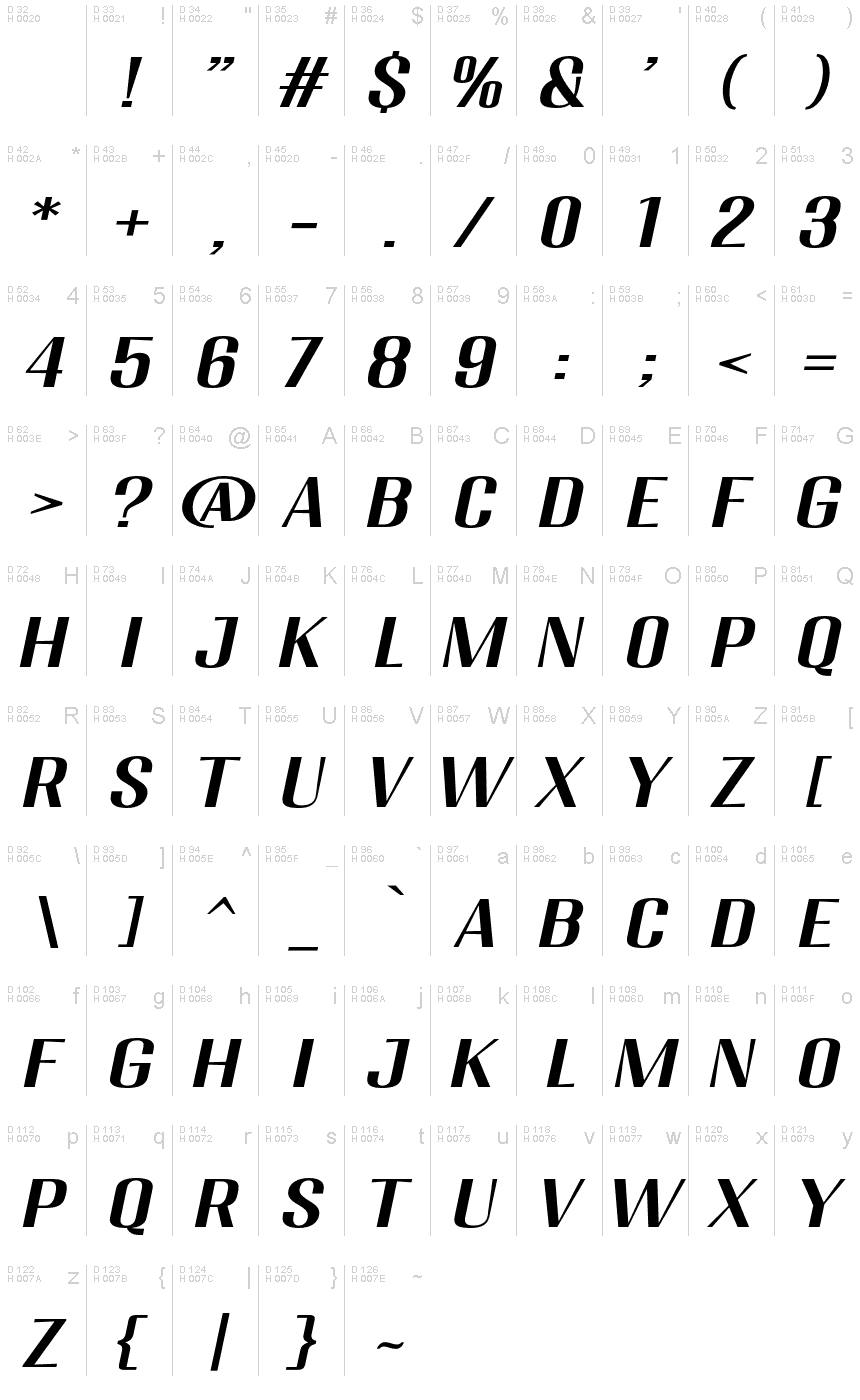
Migha-MediumExpandedCNTRSlant
Migha Medium Expanded CNTR Slant is a bold sans serif font designed by Seniors Studio. Its expanded width and slanted angle make it perfect for projects that demand attention, such as headlines, banners, and posters. This font commands a strong presence with its thick lines and sharp edges. It's suitable for modern branding designs, including logos and packaging designs. Migha Medium Expanded CNTR Slant is also ideal for editorial projects like magazines or books that require a bold and contemporary look. With its unique character set, this font will help your designs stand out from the crowd.